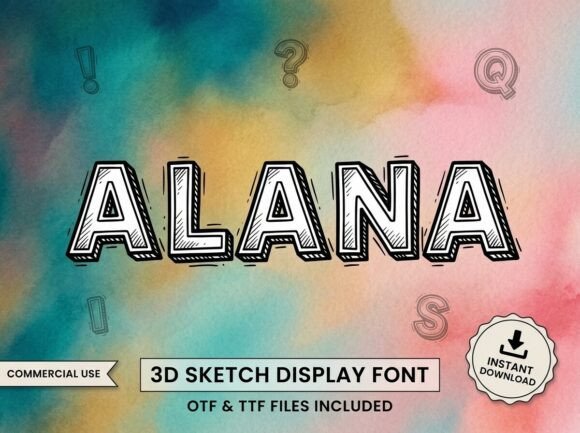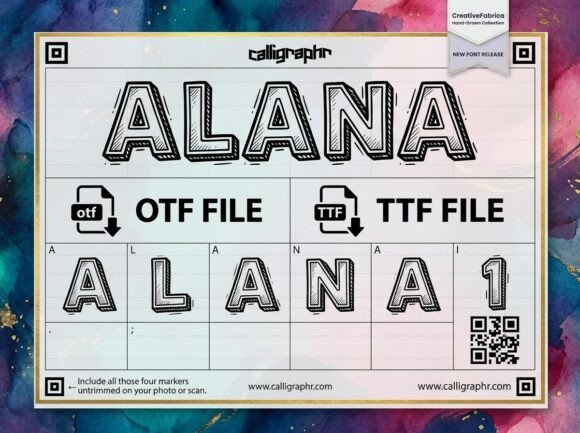
Introducing Alana Font: Unleash the Whimsy of Hand-Drawn Creativity
Are you a designer, crafter, or creative entrepreneur looking for a font that captures the authentic energy of a creator’s notebook? Look no further than Alana, a charming hand-drawn display font that brings 3D depth to a whimsical, sketched aesthetic. With its bold, blocky letterforms, hand-shaded cross-hatching, and distinct “doodle-journal” soul, Alana is the perfect choice for adding a touch of personality to your projects.
The Inspiration Behind Alana
Alana font is inspired by the imperfect, hand-drawn beauty of a creator’s notebook. Its unique design combines bold, blocky letterforms with hand-shaded cross-hatching, giving it a 3D depth that’s both visually striking and endearing. The result is a font that feels approachable, playful, and full of personality.
Key Features of Alana Font
- Hand-drawn aesthetic: Alana’s letterforms are carefully hand-drawn, giving them a unique, imperfect feel that’s reminiscent of a creator’s notebook.
- Bold, blocky letterforms: Alana’s letters are bold and blocky, making them perfect for headlines, titles, and other display text.
- Hand-shaded cross-hatching: The font features hand-shaded cross-hatching, which adds a 3D depth to the letters and gives them a sense of texture.
- Doodle-journal soul: Alana’s design is inspired by the doodle-journal style, giving it a playful, whimsical feel that’s perfect for creative projects.
Alana font is the premier choice for a variety of creative projects, including:
- Independent stationery branding: Add a touch of personality to your stationery with Alana’s unique, hand-drawn aesthetic.
- Creative school project headers: Make your school projects stand out with Alana’s bold, blocky letterforms and playful personality.
- Boutique craft packaging: Add a touch of whimsy to your craft packaging with Alana’s hand-drawn font.
- Engaging lifestyle-vlog social media overlays: Use Alana to add a playful, creative touch to your social media overlays and make your content stand out.
Why Choose Alana Font?
So why choose Alana font for your creative projects? Here are just a few reasons:
- Unique aesthetic: Alana’s hand-drawn aesthetic sets it apart from other fonts, giving your projects a unique, one-of-a-kind feel.
- Approachable weight: Alana’s bold, blocky letterforms have an approachable weight that’s perfect for display text.
- Playful personality: Alana’s playful personality shines through in its design, making it perfect for creative projects that need a touch of whimsy.
Tips for Using Alana Font
- Experiment with colors: Alana’s hand-shaded cross-hatching looks amazing in a variety of colors. Experiment with different hues to find the perfect look for your project.
- Mix and match: Try mixing and matching Alana with other fonts to create a unique, layered look.
- Don’t be afraid to get creative: Alana’s playful personality encourages creativity. Don’t be afraid to experiment and try new things!